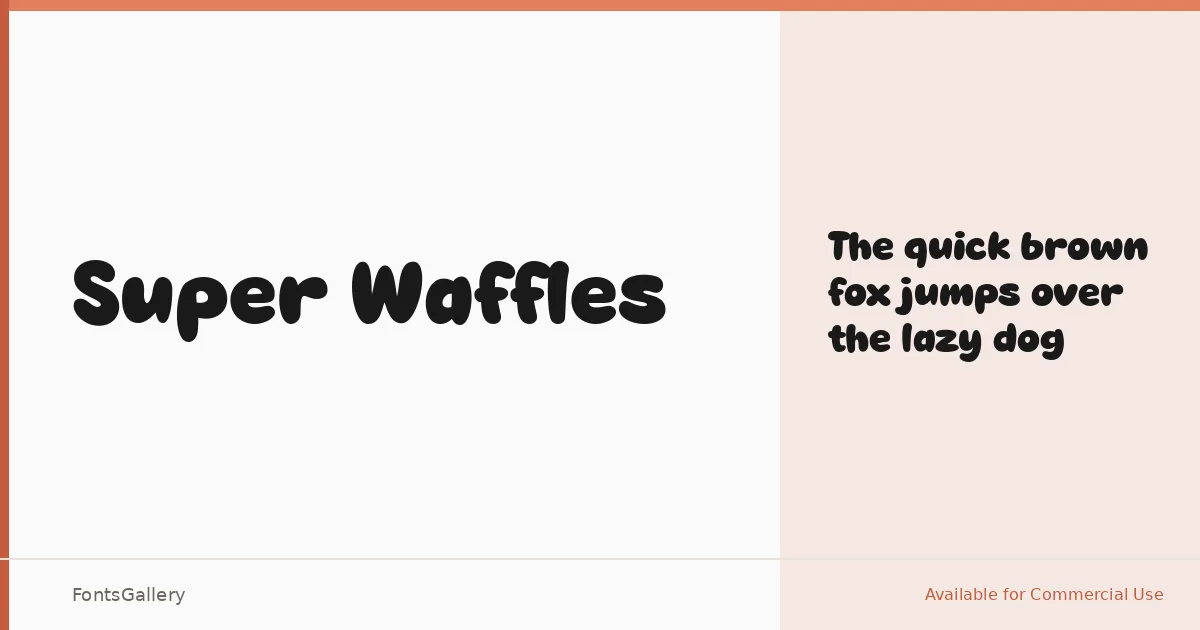
About Super Waffles Font
There is an unmistakable energy to this display face — the kind of bouncy, slightly irreverent confidence that makes a logo or package feel like it has a personality before anyone reads a single word. Super Waffles arrives as a single Regular weight in TTF format, built for Latin-language settings where the goal is to be noticed and enjoyed.
This is a display typeface through and through — bold and whimsical in equal measure, with letterforms that lean into playfulness rather than restraint. The shapes carry a handcrafted looseness that suits branding work where warmth matters as much as legibility. At larger sizes, where display type lives, that character only gets louder and more assured.
It earns its place on packaging, in children's book titling, across social media graphics, and anywhere a logo needs to feel approachable and fun. Pair it with something grounded — Helvetica or Josefin Sans bring clean neutrality that lets the display headline breathe, while Canela, Asap, or ABC Arizona offer more editorial contrast if the job calls for layered personality.